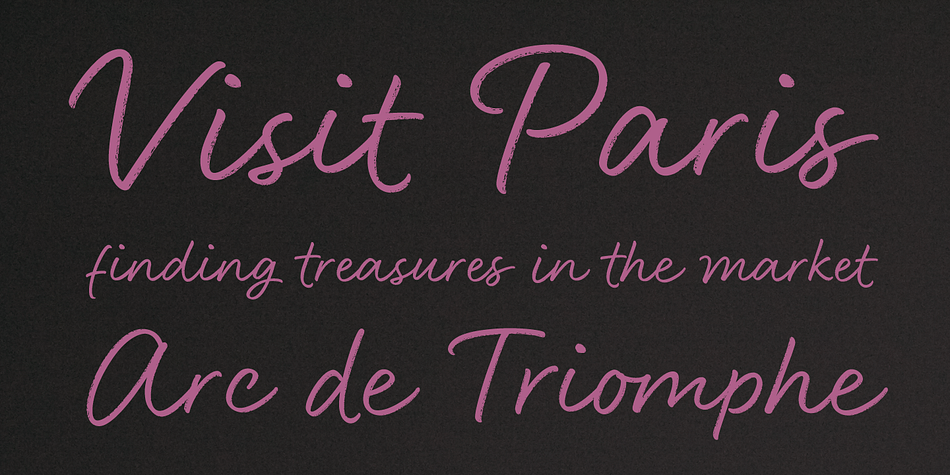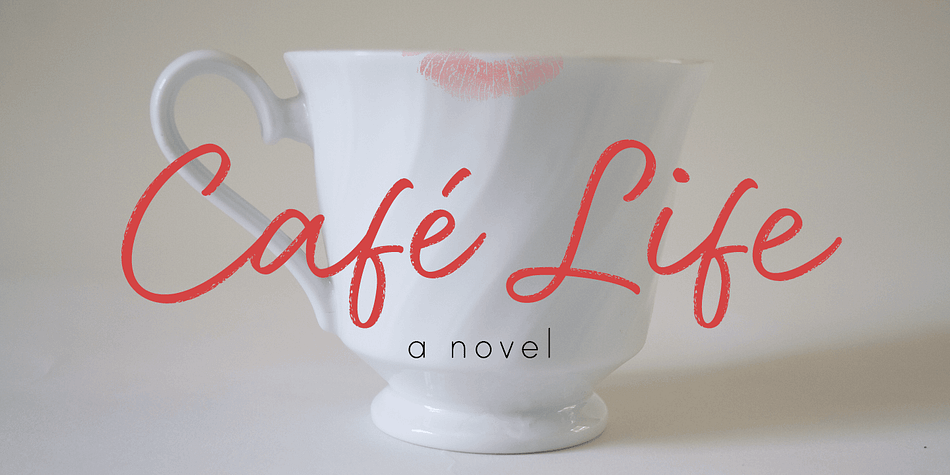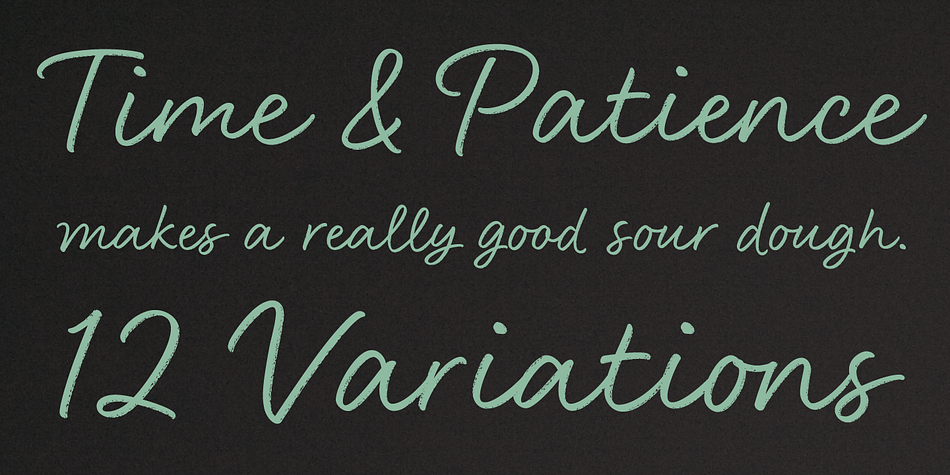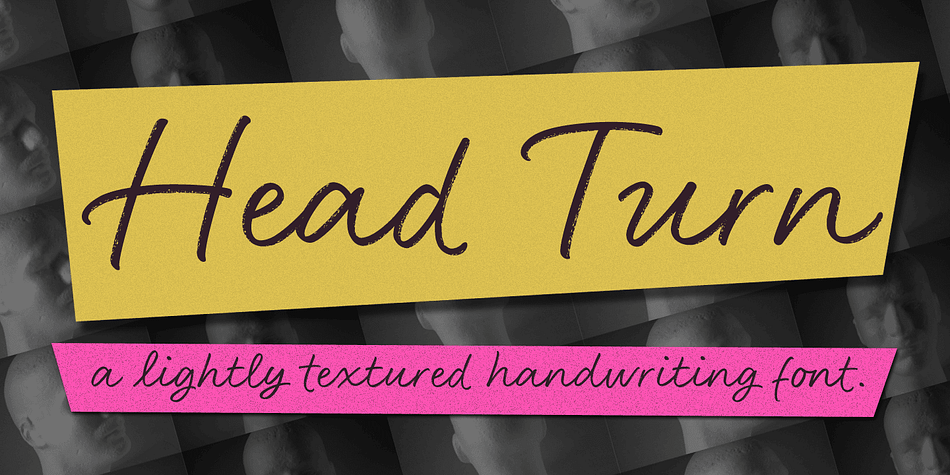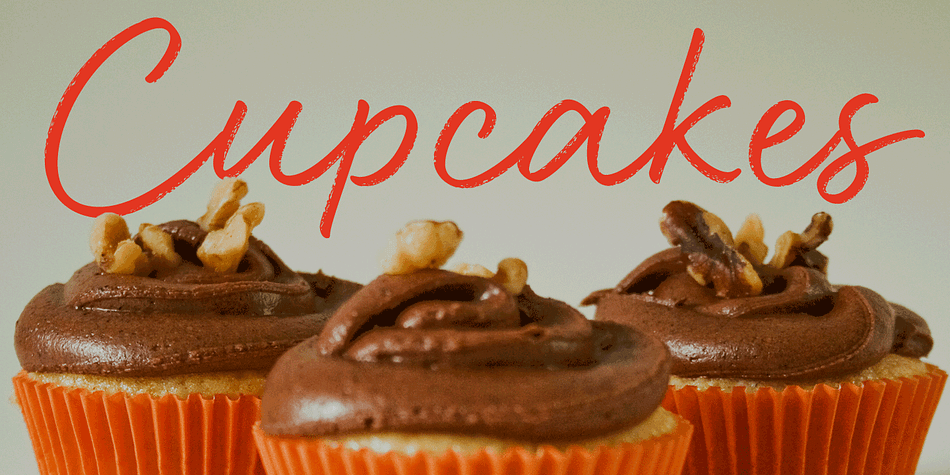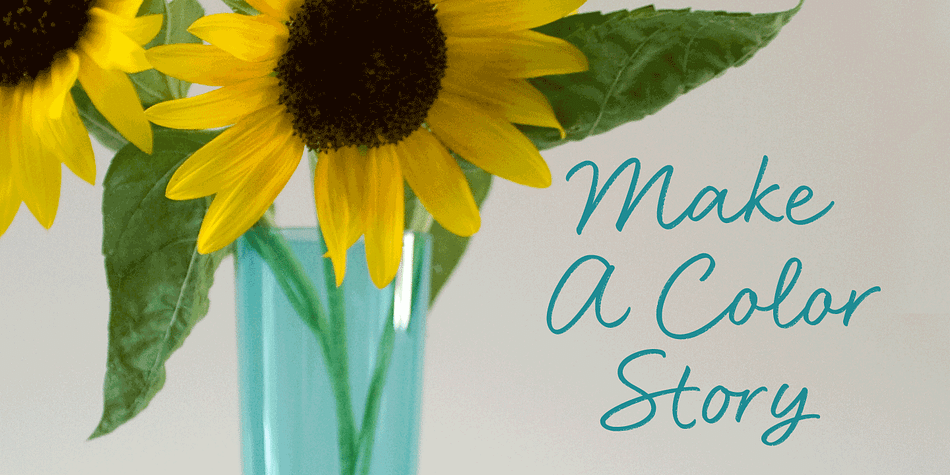
Designed by Jess Latham, Head Turn is a hand drawn and script font family. This typeface has two styles and was published by Jess Latham.
Head Turn is a lightly textured handwriting font by Jess Latham. The subtle dry marker texture and opentype wizardry adds a unique realness and depth.
It’s got style and sophistication that make it destined to be a classic!